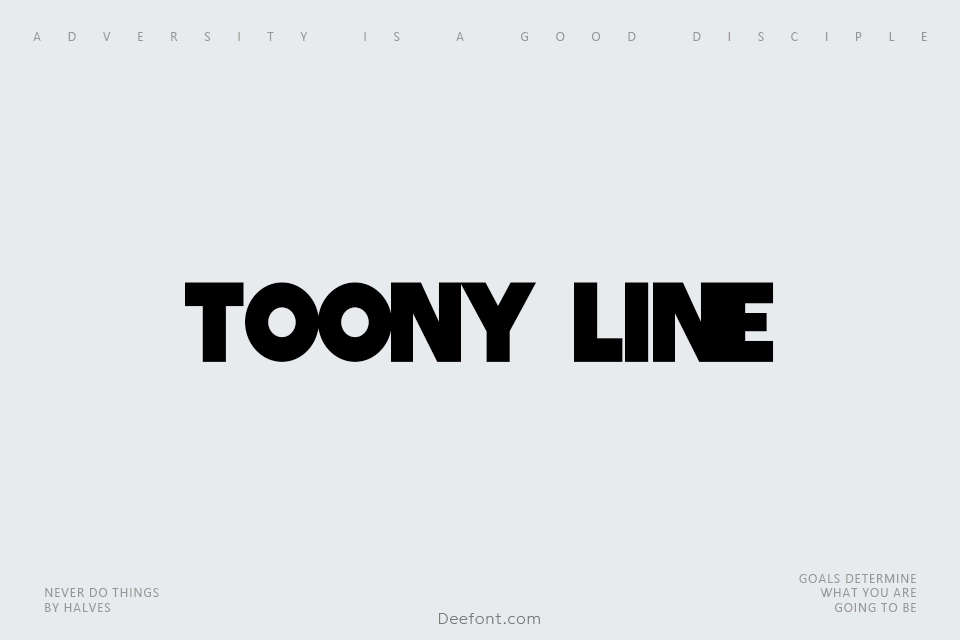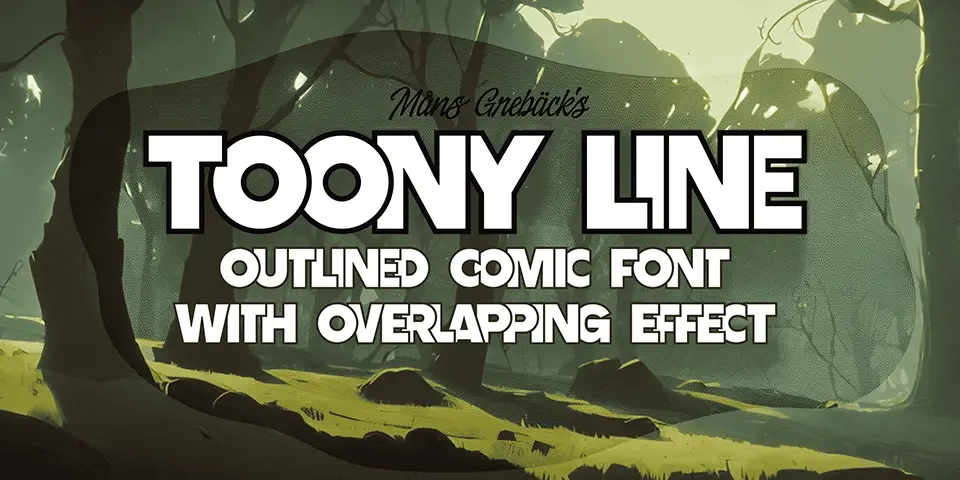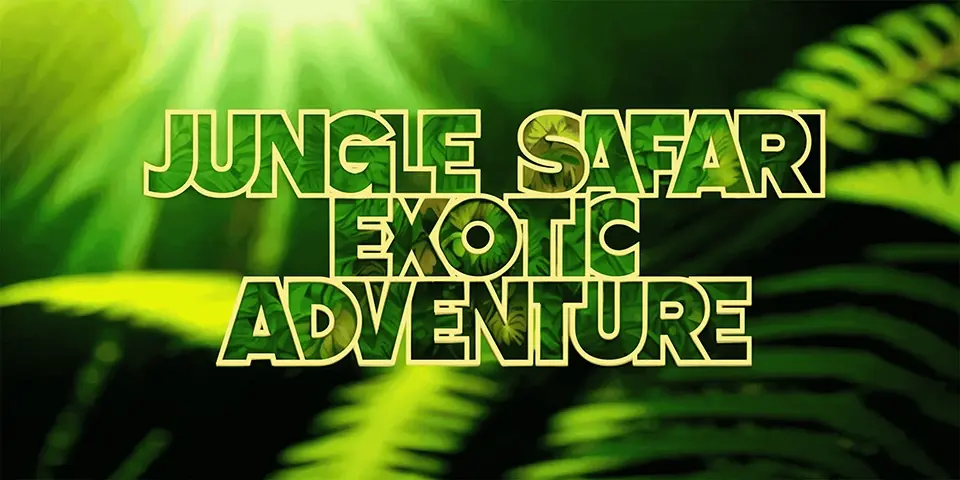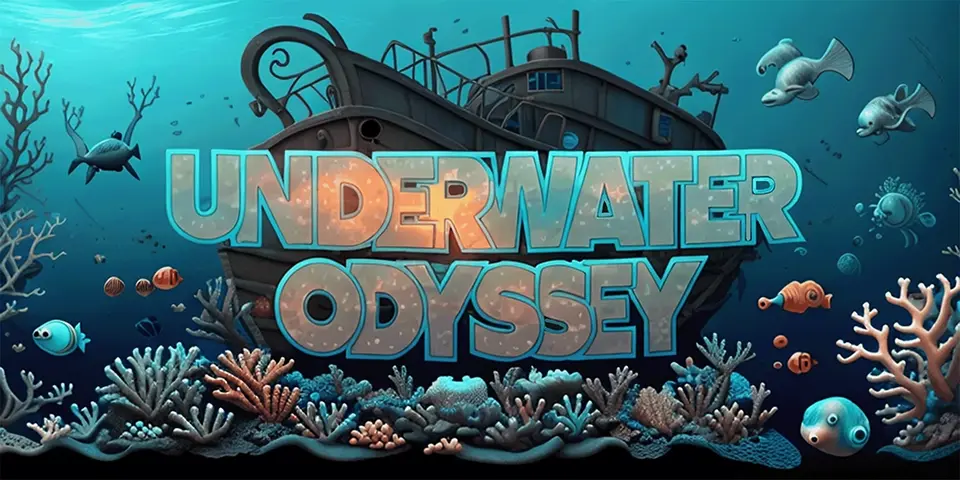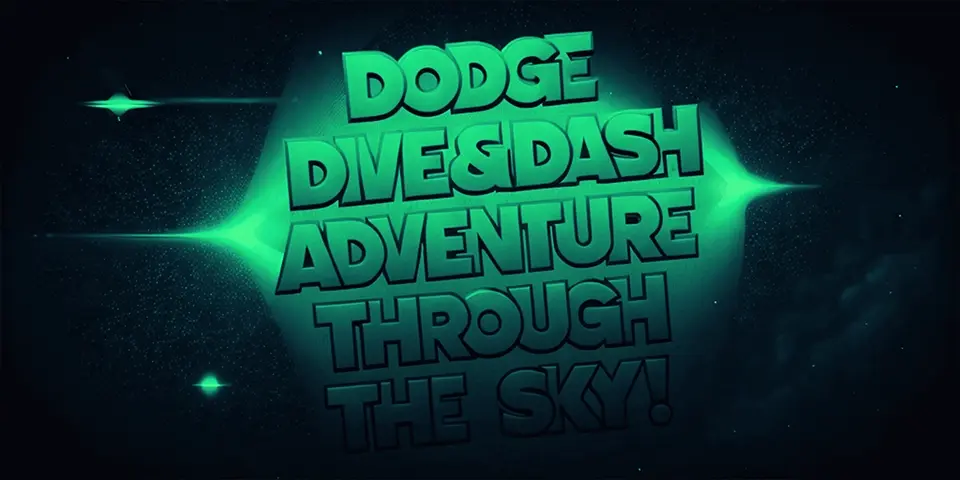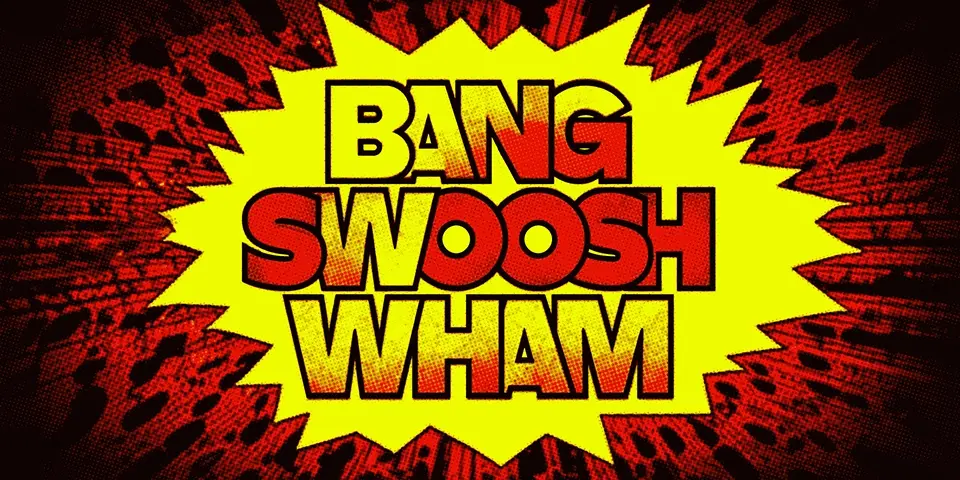
Toony Line Font
Toony Line is a comic display font from the golden age of cartoons, designed with sharp sans-serif characters that dance playfully across the page. The font channels playful tunes reminiscent of beloved animated classics, featuring a hint of Mickey’s magic and Disney dreaminess blended with bold comic strip aesthetics. With sophisticated OpenType functionality enabling intricate overlapping effects, contextual alternates, and extensive linguistic support for Latin-based languages worldwide, this typeface combines firm boldness with unique character perfect for headlines, signage, and creative branding projects.